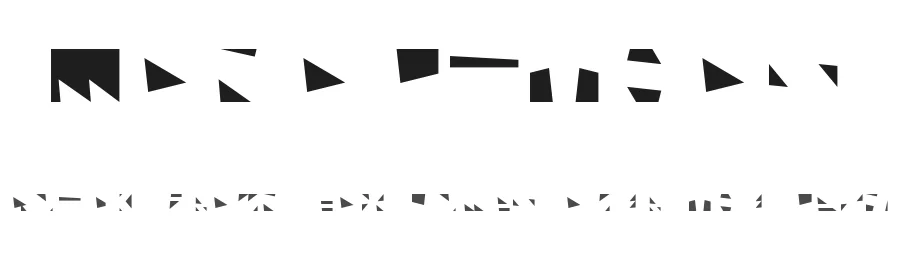
About Vermin Vibes Corrupto Font
Vermin Vibes Corrupto Font is a decorative font that shines as a display or heading face. Pair it with a clean sans-serif or serif font for body text β the contrast creates a clear hierarchy while the two styles stay balanced and easy to read.